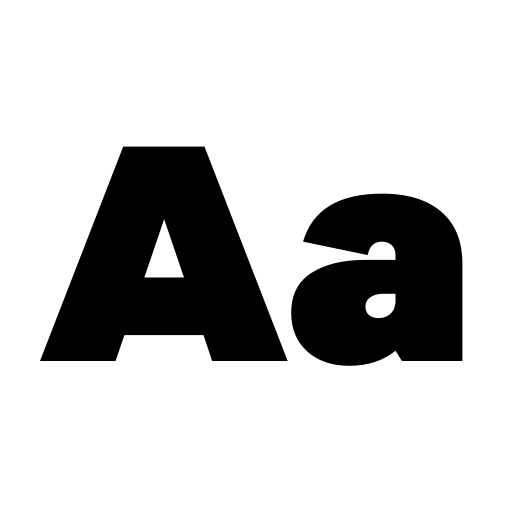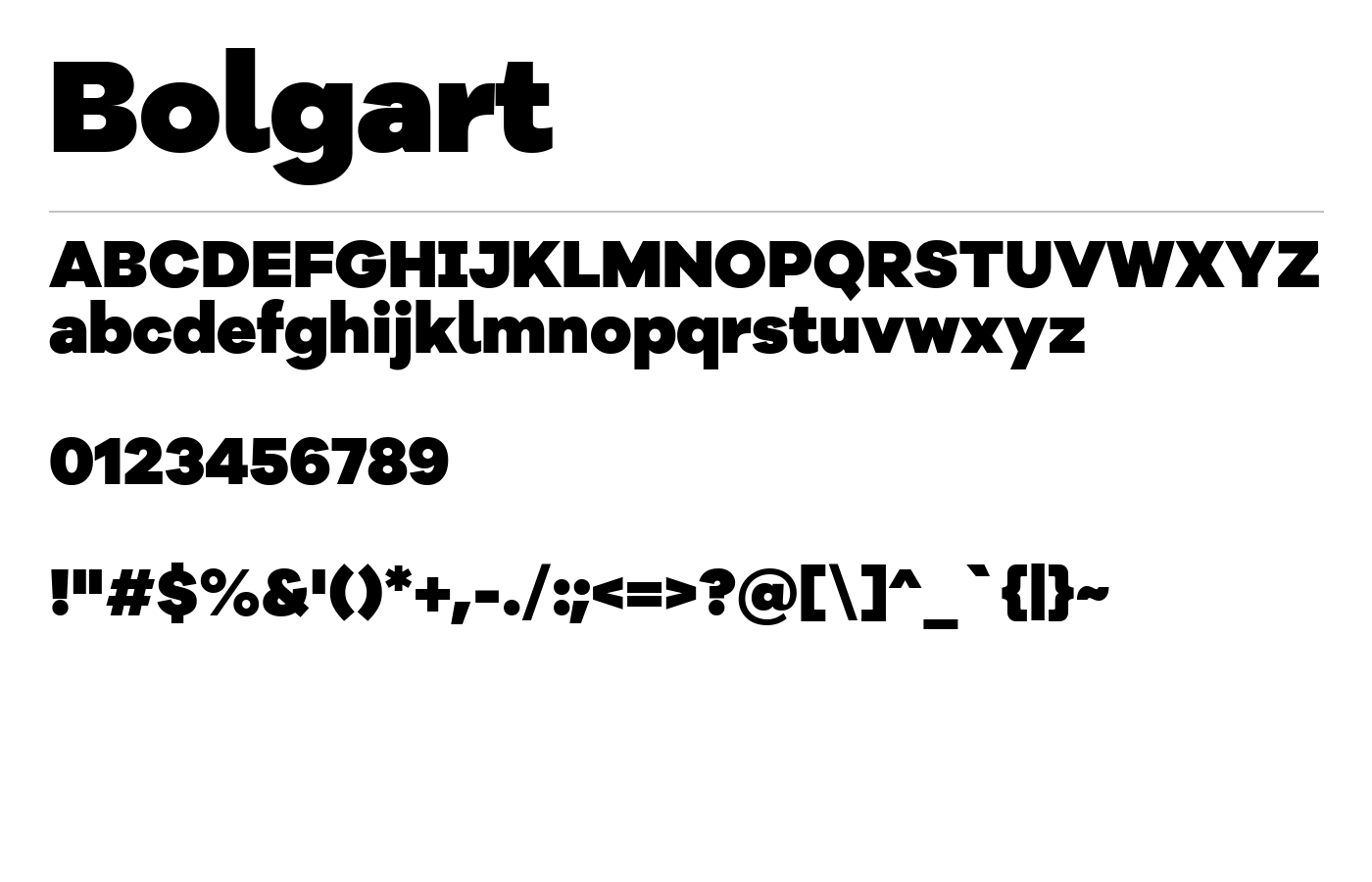
Bolgart is a bold, wide sans serif font with clean, geometric shapes and strong presence. Its thick strokes and uniform weight make it highly readable and impactful, perfect for headlines, logos, and attention-grabbing designs that require a modern, confident look. This font works well for branding and editorial use where boldness and clarity are key.
Bolgart Font
About Bolgart Font
| Font family | Bolgart Font |
| Designer | Maulana Creative |